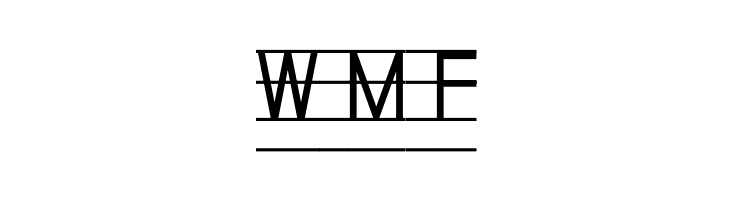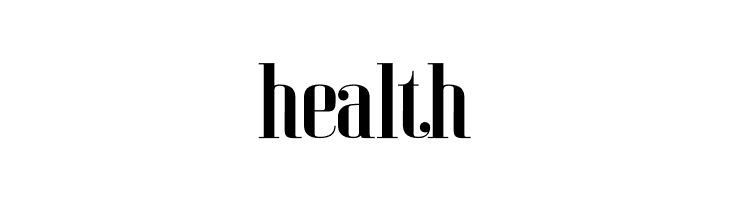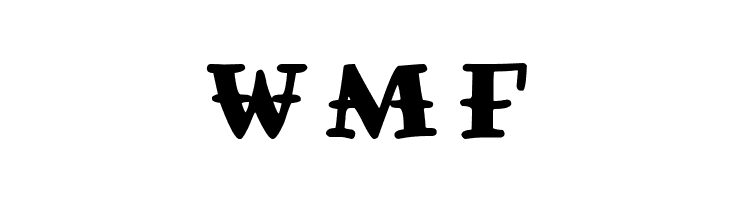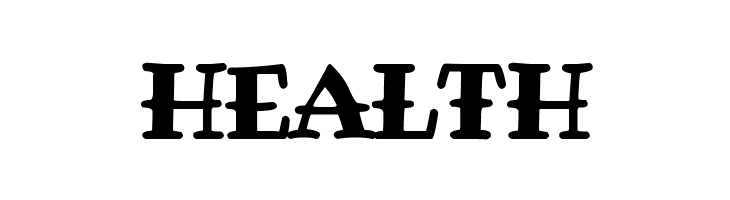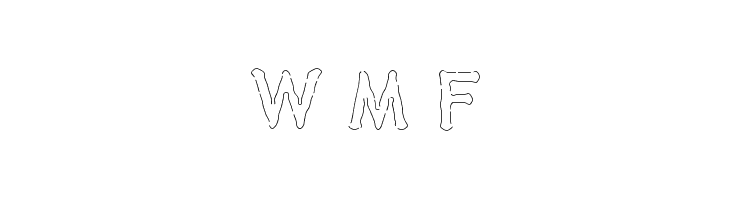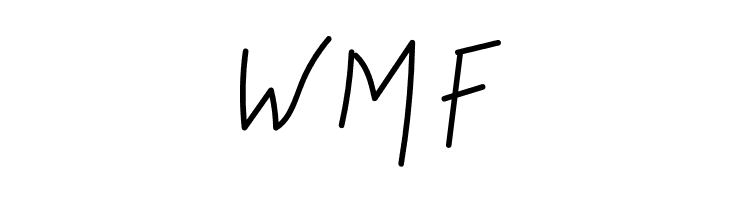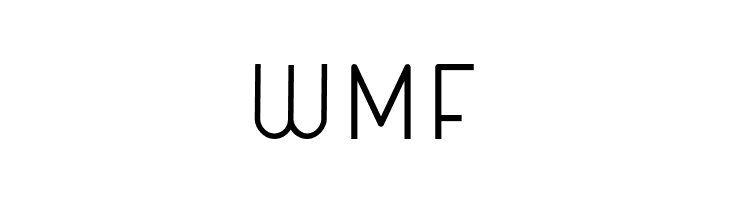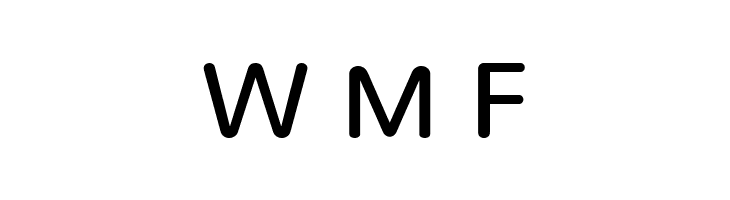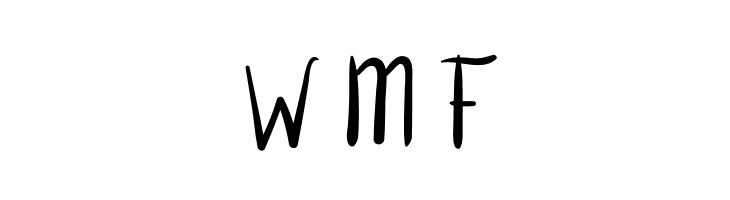
A geometric, modern font with consistent stroke widths and balanced proportions.
A tall, narrow font with high contrast, perfect for elegant and modern designs.
A bold, vintage-style font with playful, exaggerated serifs.
A playful, hand-drawn font with a doodle-like, cartoonish style.
A playful, casual handwritten font with dynamic strokes.
A modern, geometric font with clean lines and a sleek appearance.
A modern, rounded font with a geometric structure and consistent stroke width.
A modern, rounded sans-serif font with a friendly and approachable style.
An elegant, flowing script font with modern, artistic curves.
A playful, handwritten script font with a dynamic and friendly style.